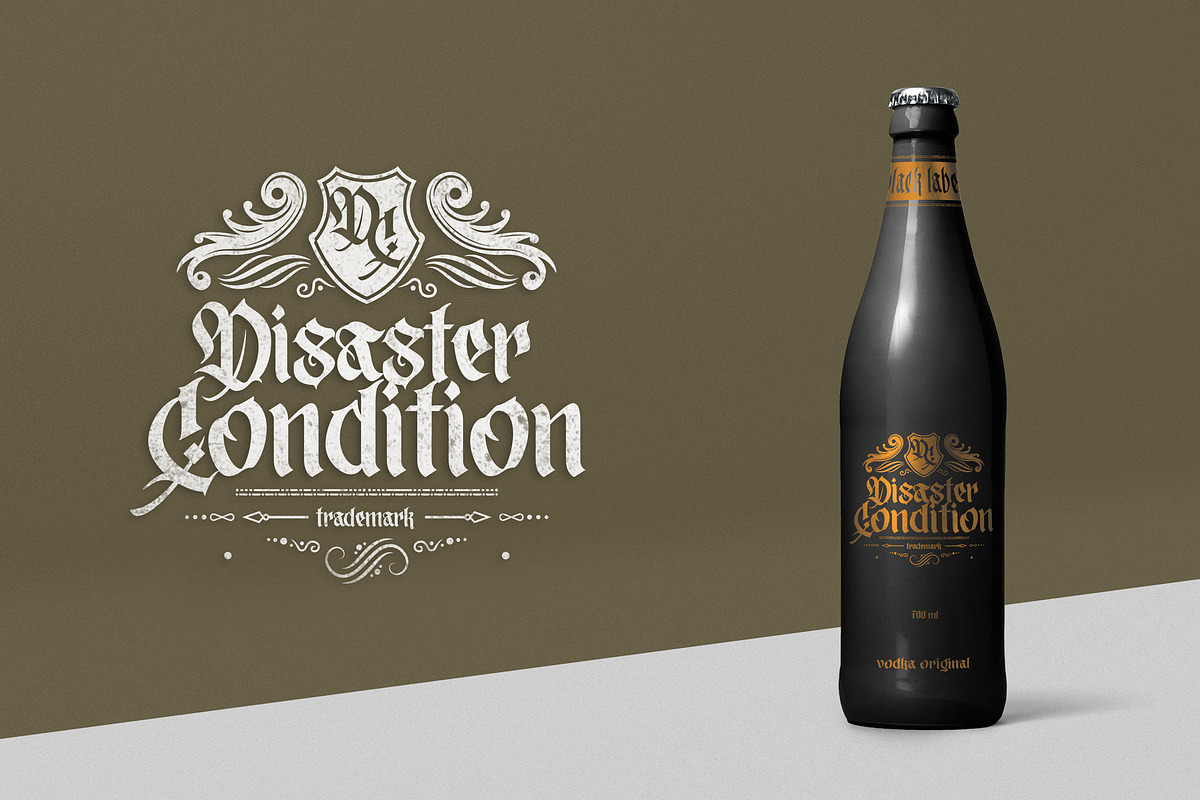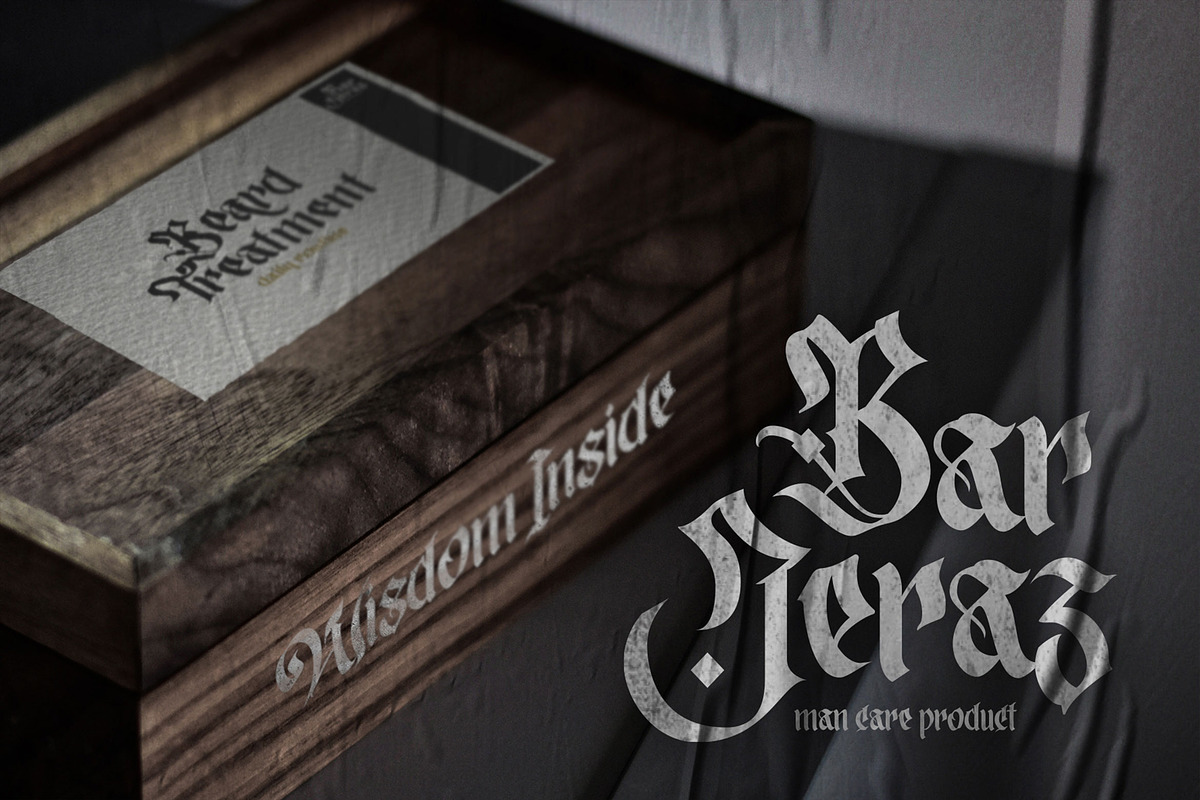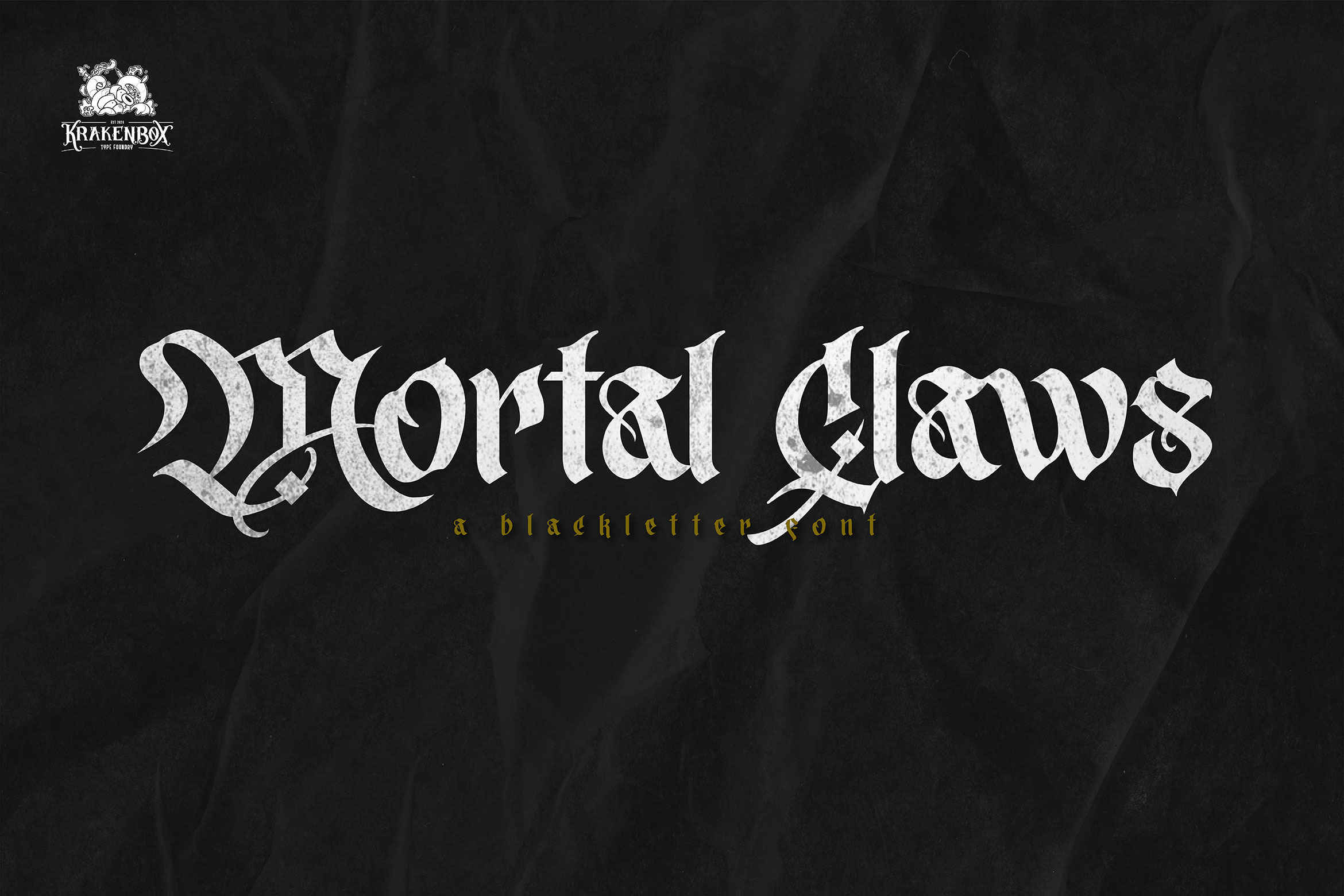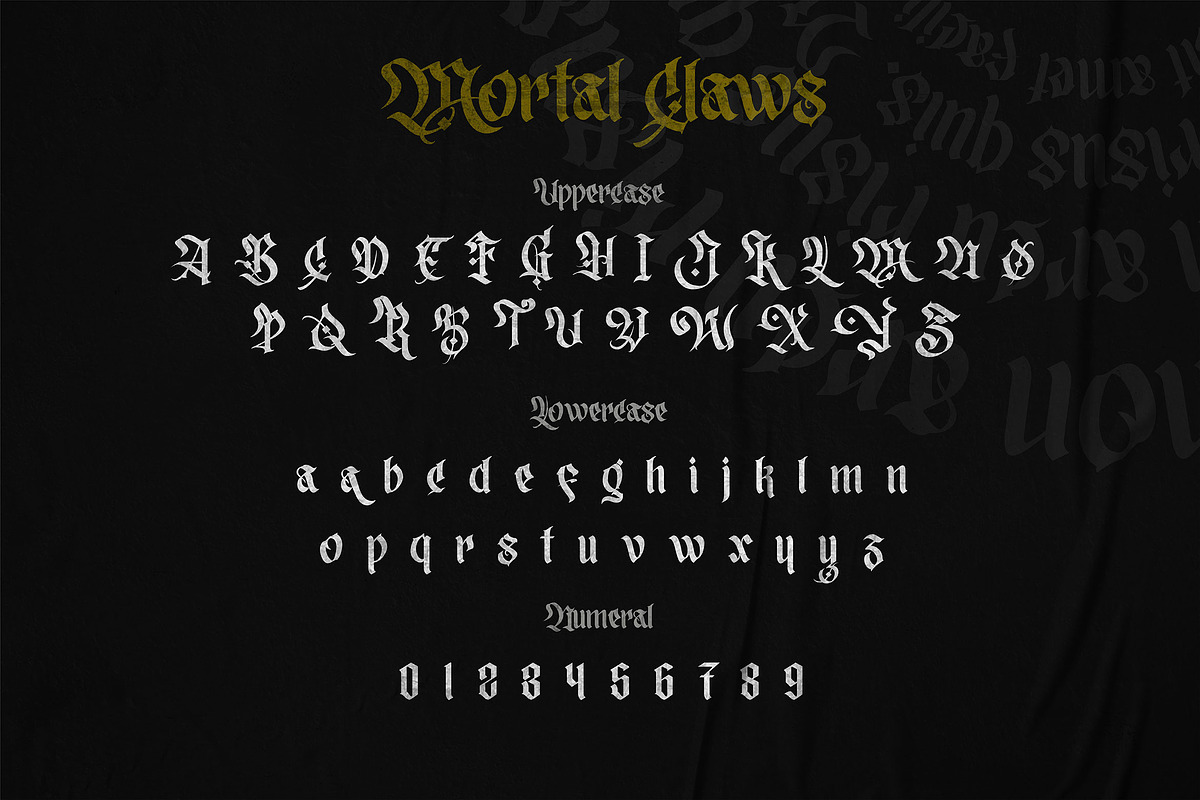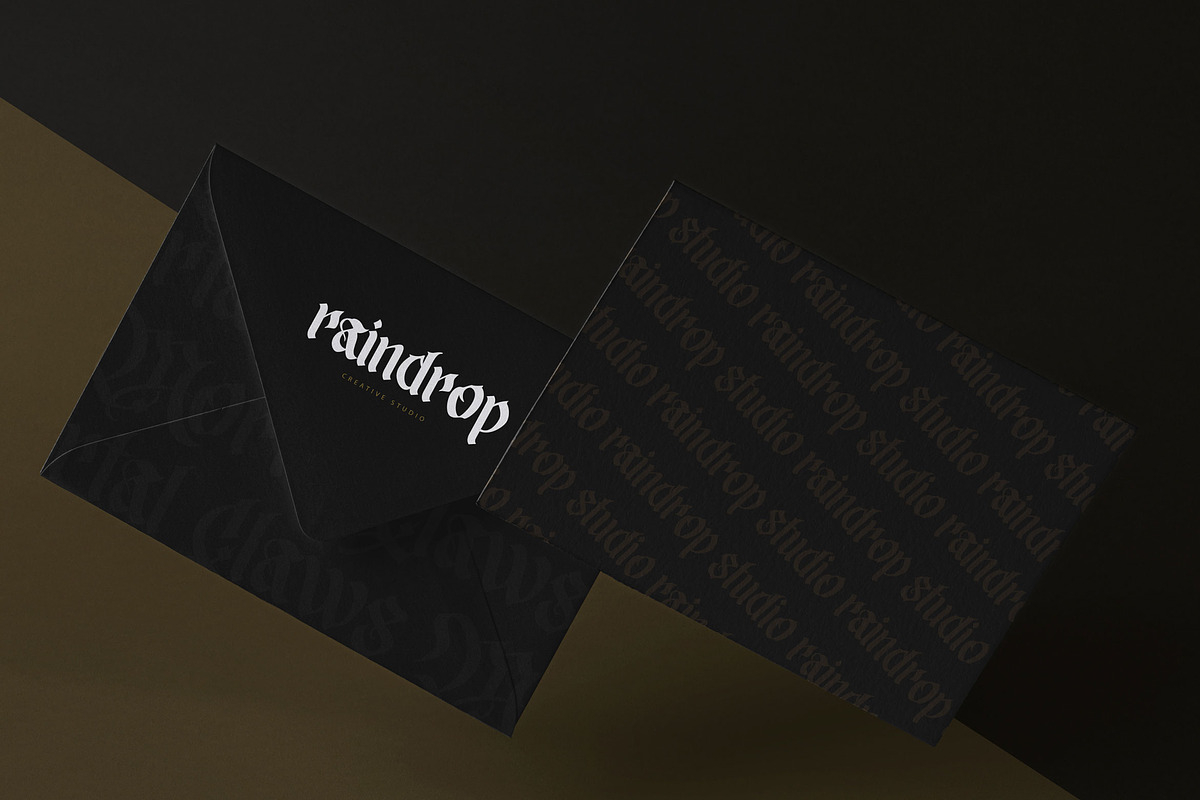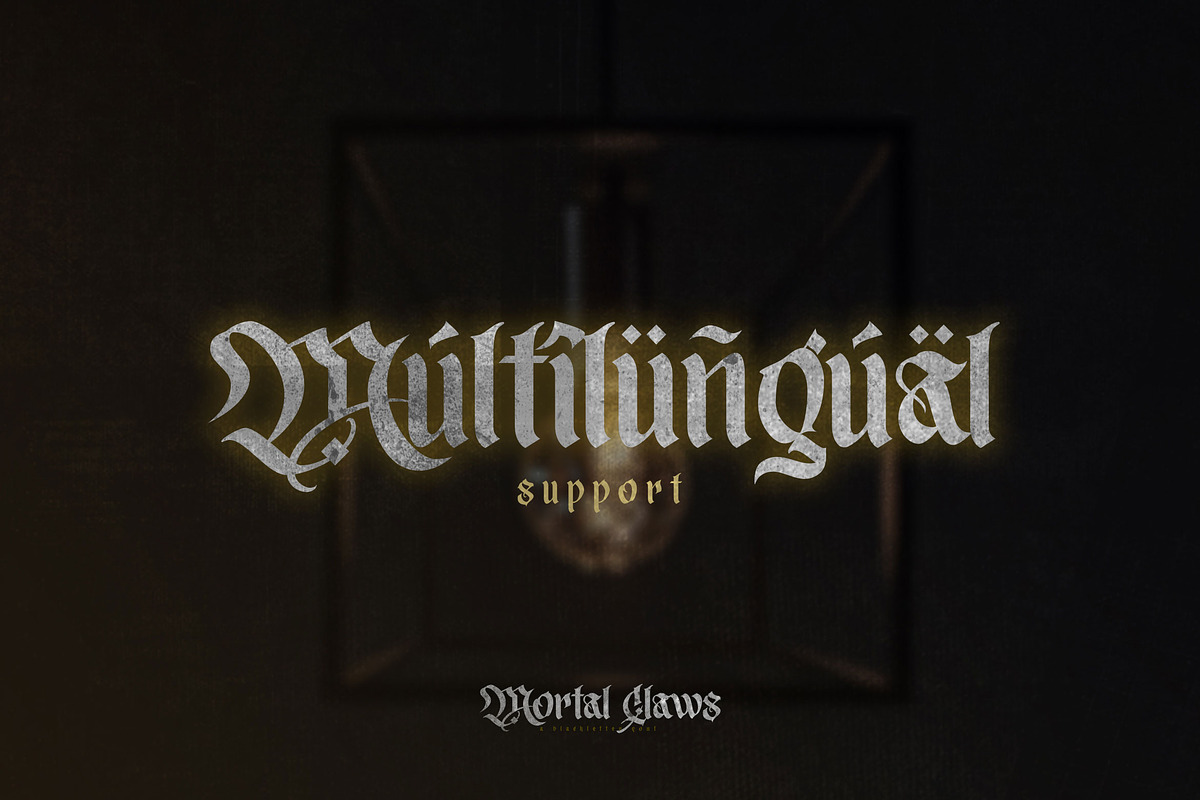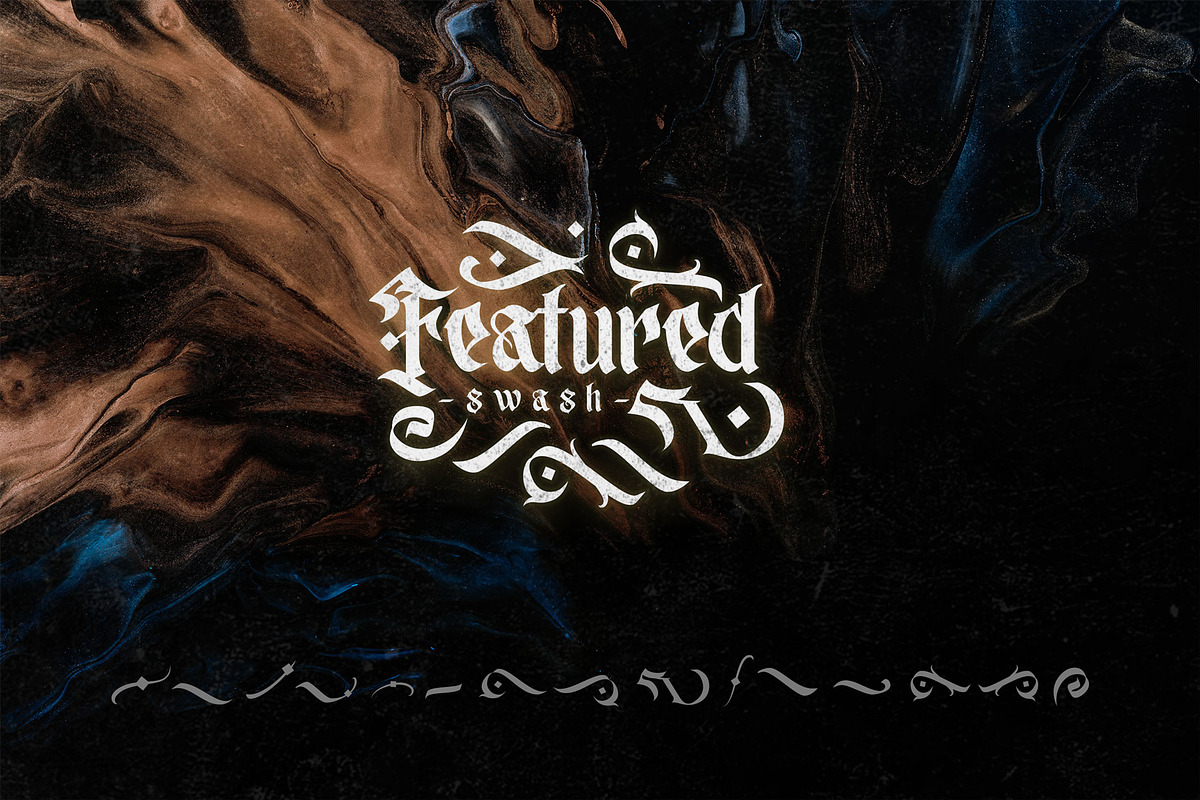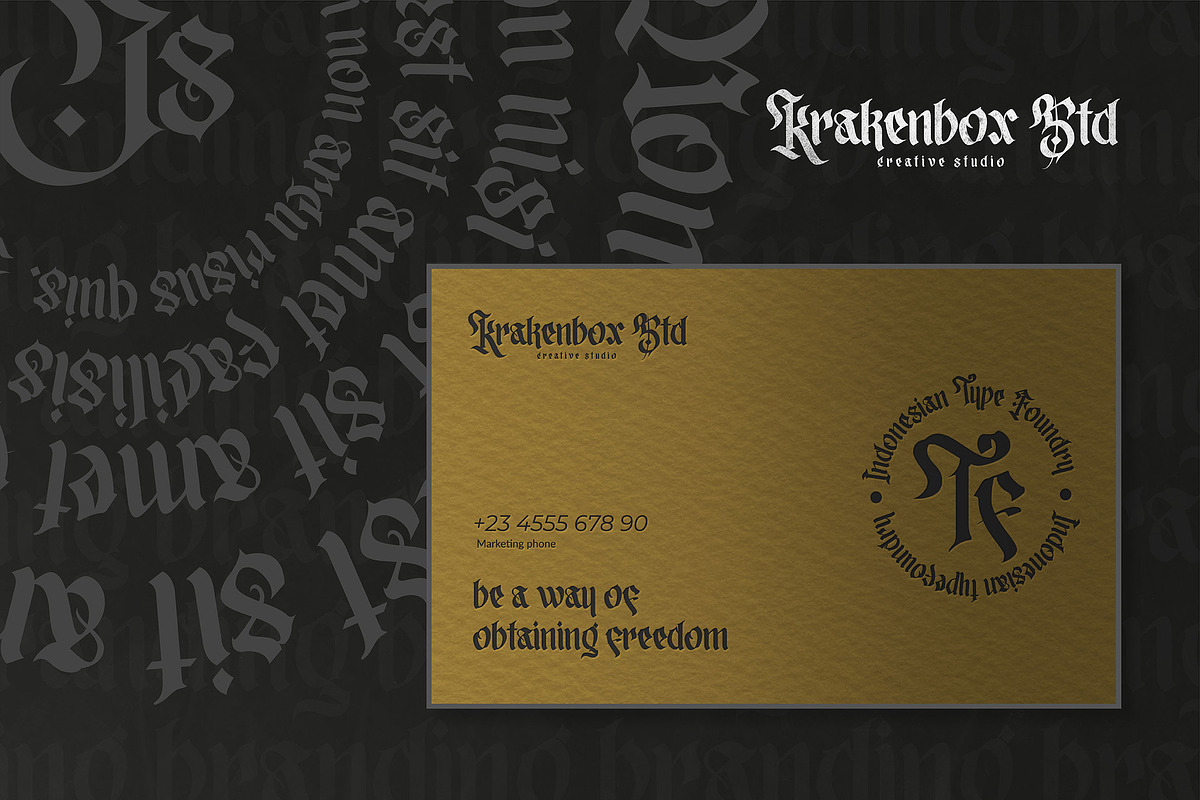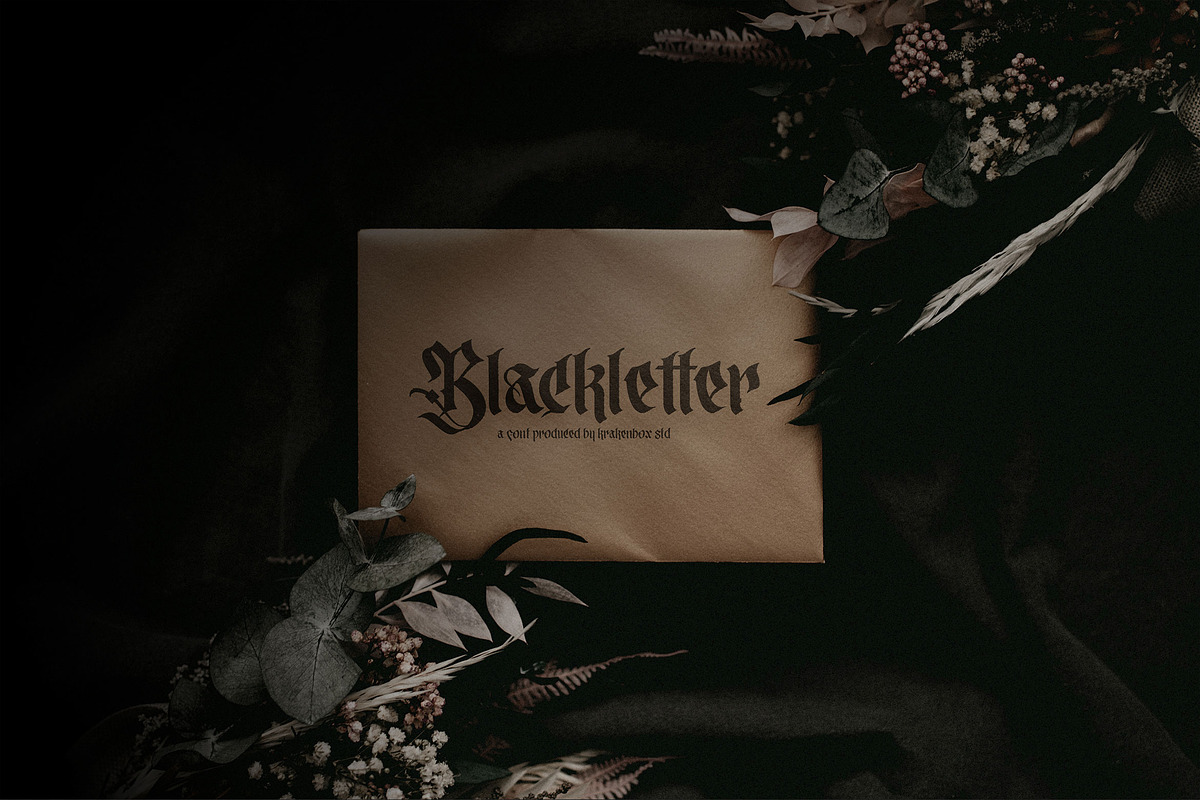
Mortal Claws - Blackletter Font
Mortal Claws is a Blackletter Font. It has gothic, mysterious, brave, classic. It’s a great font for fashion, apparel projects, signature, album cover, logo, branding, magazine, social media, & advertisements, but also works great for other projects.
- 2 Style Regular and Swash